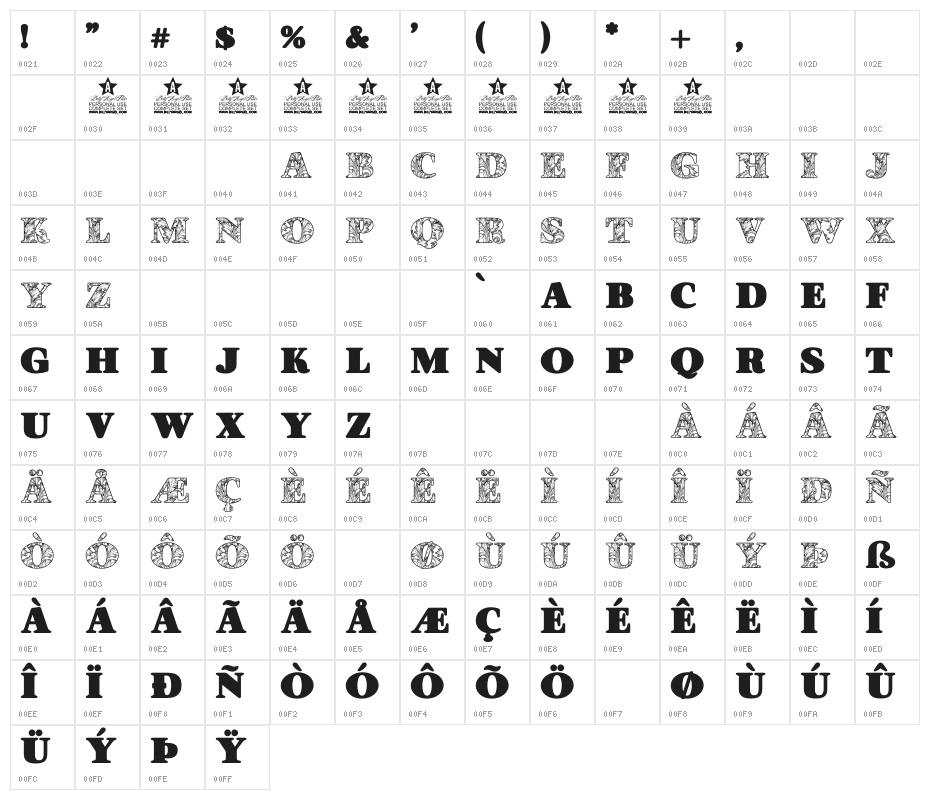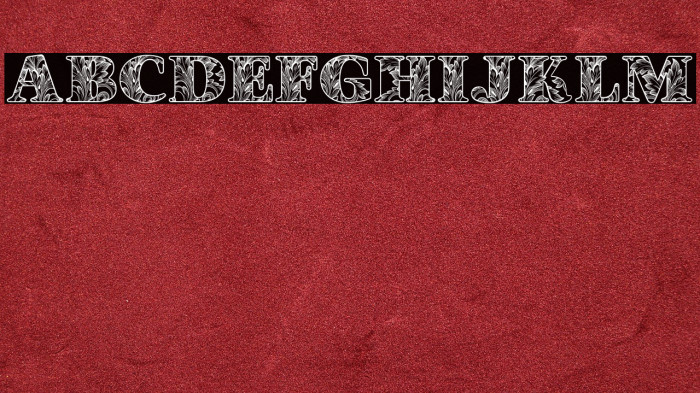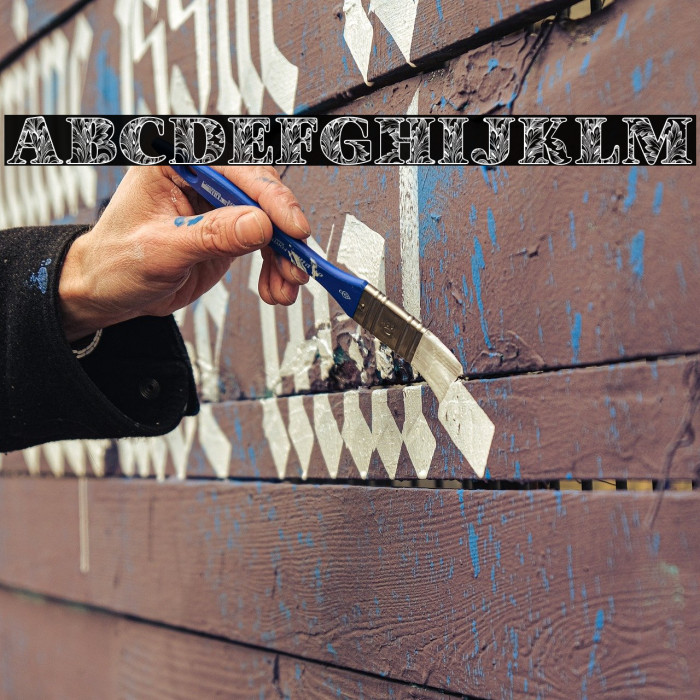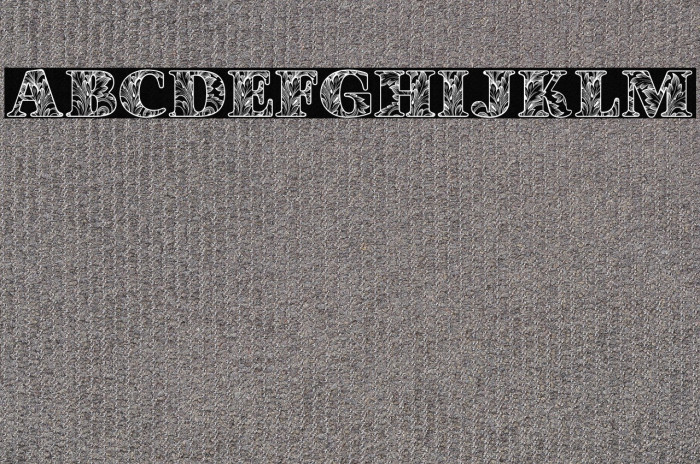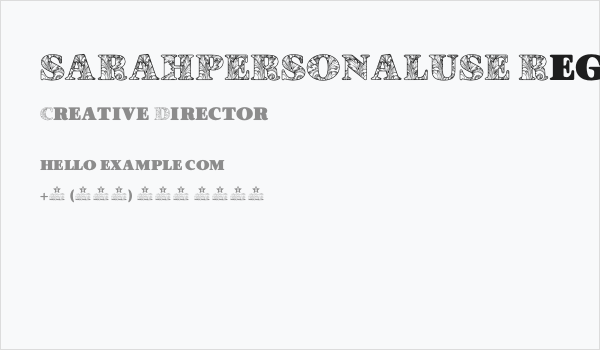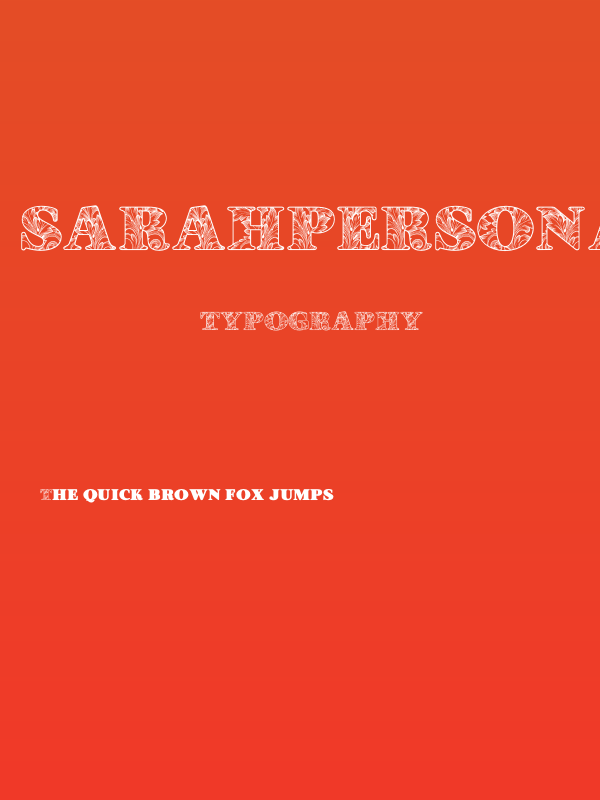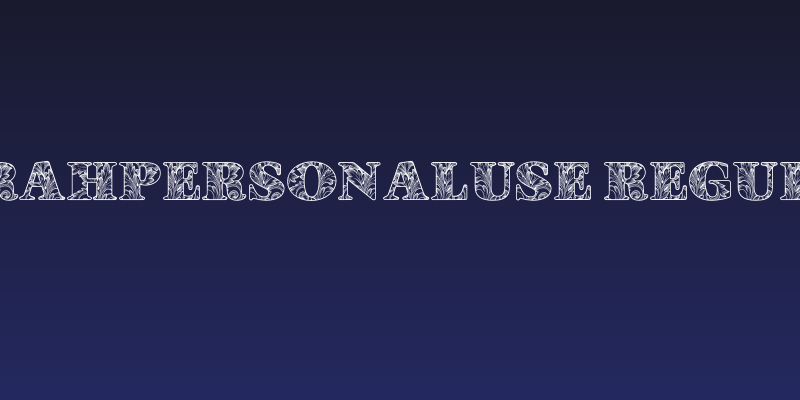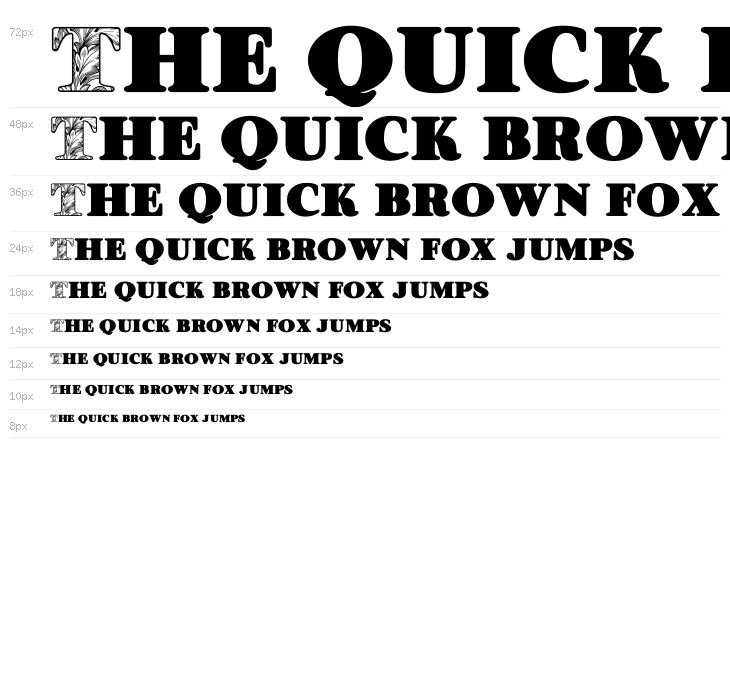
SARAHPERSONALUSE-Regular Font
SARAHPERSONALUSE-Regular Description
This font features a bold and decorative style with intricate patterns filling each letter, creating a visually striking appearance. The uppercase letters are designed with elaborate detailing, making them ideal for attention-grabbing headlines or artistic projects. The font's bold weight and high contrast between thick and thin strokes enhance its decorative appeal. The character spacing is normal, allowing for readability despite the intricate designs. This font is well-suited for creative projects that require a unique and artistic touch.
| Use Case | Headlines, Logos, Artistic projects |
| Proposed Projects | Ideal for artistic projects, posters, headlines, and creative branding. |